This a very popular YouTube font logo, often used by many YouTubers in their videos, but also in their thumbnails.
Bebas Neue is a simple, yet elegant YouTube video font that works brilliantly for any type of content.
A fan of this font is YouTuber Aspyn Ovard, who made a habit out of using it almost always a few years back. The slender lettering looks excellent as a YouTube thumbnail font, as you can see in the following example:
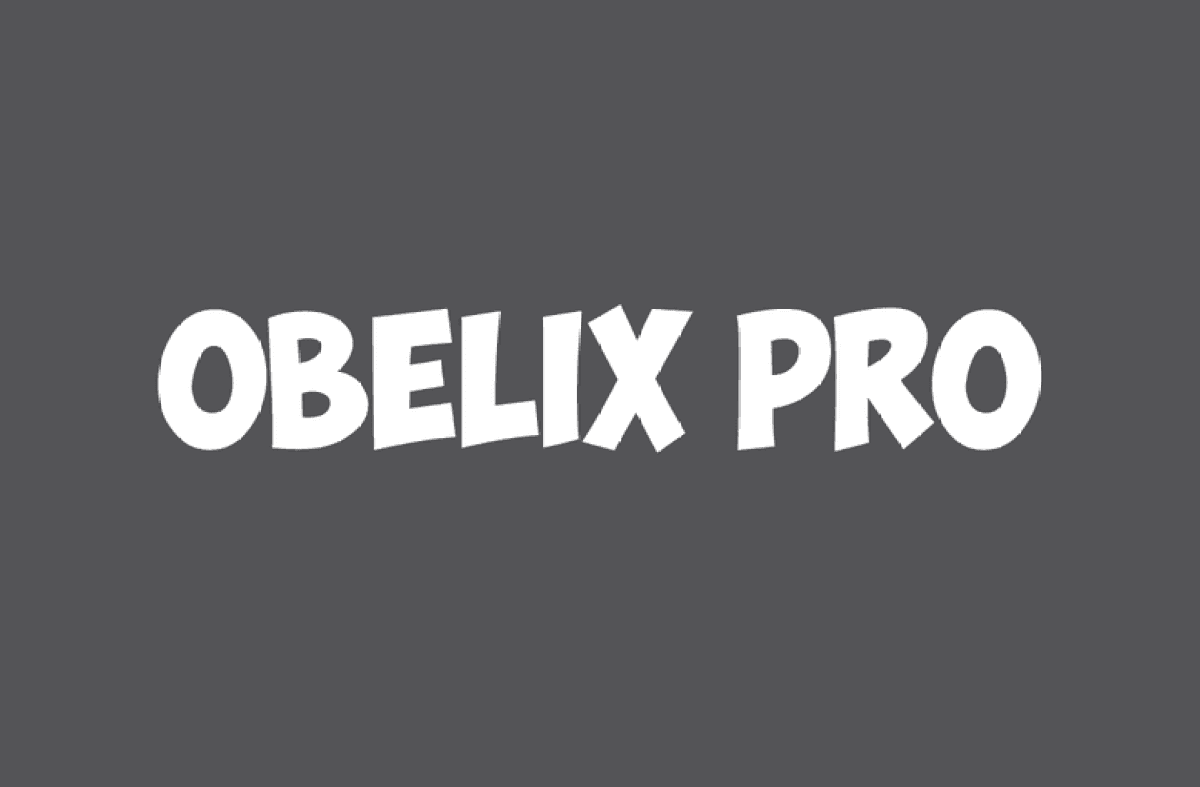
Is a simple font not hitting the sweet spot? Then go for Budmo, one of the coolest fonts YouTubers use, among which we also find Liza Koshy.
It's a fun and quirky font, with its glitzy and bold lettering. Pair it with some subtle colors, and you've got yourself an eye-catching YouTube text font that is sure to impress.
Did anyone say "magical"? Well, here you go. A font perfect for all things fantastic. It's bold, it's interesting, and it sure has a lot of pizazz. Alisha Marie knows it and often uses it to caption her thumbnails.
Beauty and the Beast is one of the best fonts for YouTube because it stands out, but without being a centerpiece. Throw it on a very colorful background, and it will do its job as perfectly as when it's used in association with more bland backgrounds.
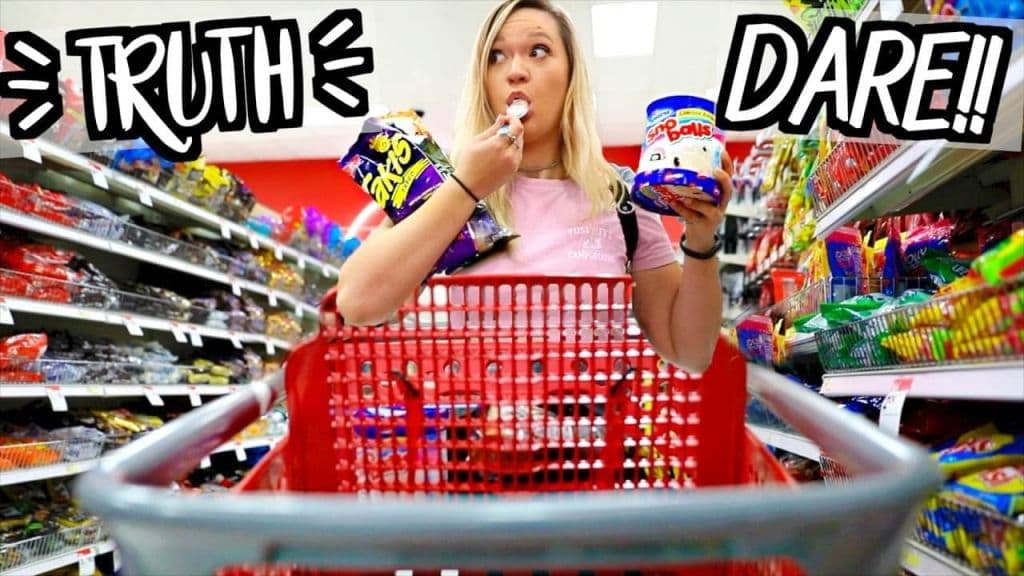
A simple, bold font like Impact definitely gets the job done. This YouTube text font will work wonderfully on game review channels or even makeup channels as despite being simple, it is eye-grabbing, as well as very readable.
PewDiePie uses Impact on his video thumbnails, and we have to say, it does make for one of the most popular YouTube fonts as you might have noticed yourself. Many other YouTubers are fans of this typeface style.
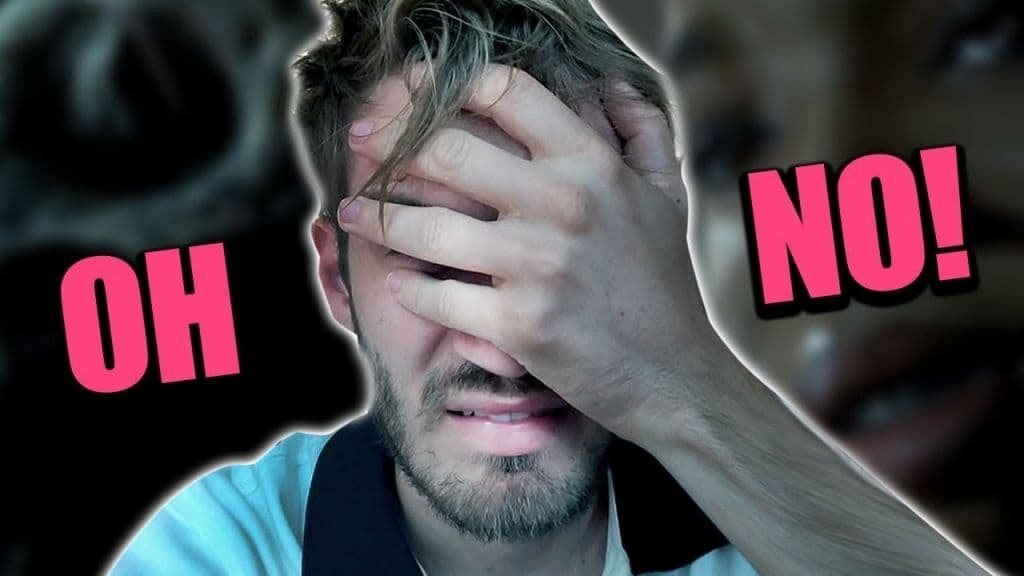
Used by Gabriel Conte on most of his YouTube videos, this typeface is different than what you might usually stumble upon. Its bold, but faded lettering looks fantastic on any video thumbnail.
River Drive would work great on a travel channel or a music one as it's one of the best YouTube fonts out there. If your goal is to stand out, then this is your chance.
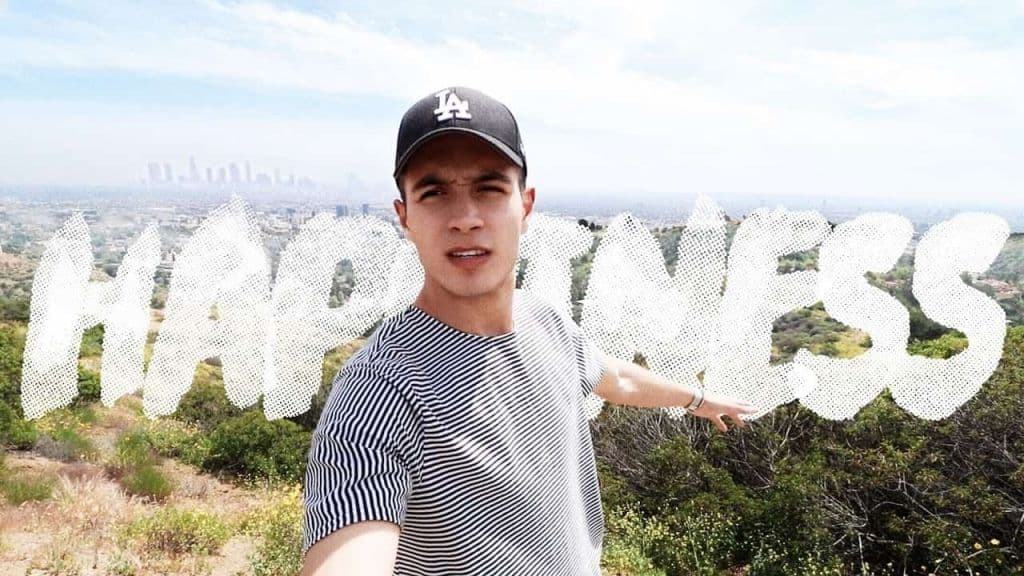
Now here's a font that just screams "Attention!" even if you just read its name. Another example on the list of best YouTube thumbnail fonts is Badaboom BB, extensively used by Wengie on her channel, and it's honestly such a great match of font and content.
Use it for quirky and fun content, and it's guaranteed to make an impression.
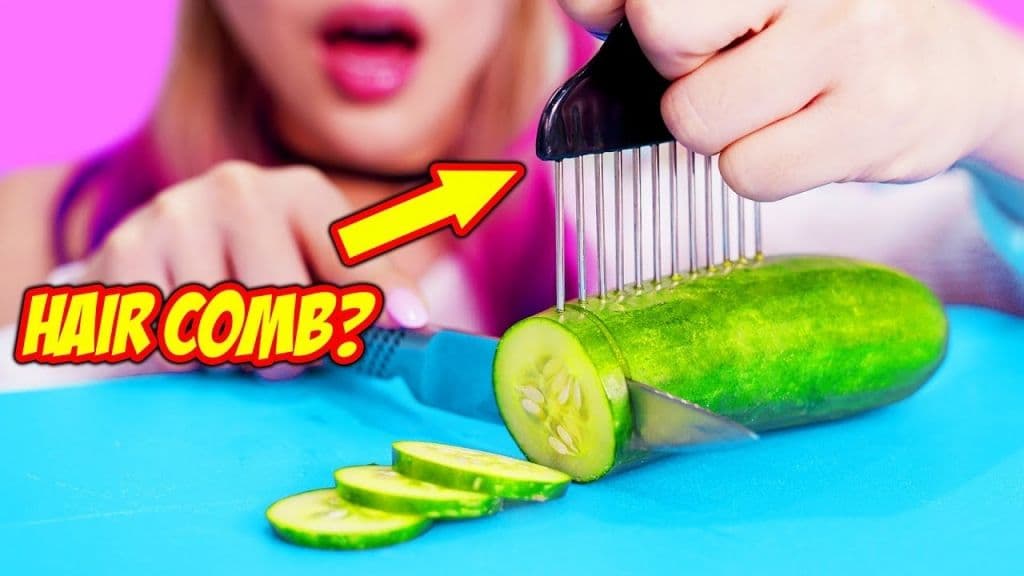
Looking for elegant but funky fonts for YouTube thumbnails? We have the right one for you.
Bernhard is elegant while at the same time looking fresh and modern. It would work best for a book-related channel or a history-related one, so if that's what you want, then it's a match.
Zoella is among some of the YouTubers that use this font for their thumbnails, and you would probably agree that it does look absolutely fabulous.
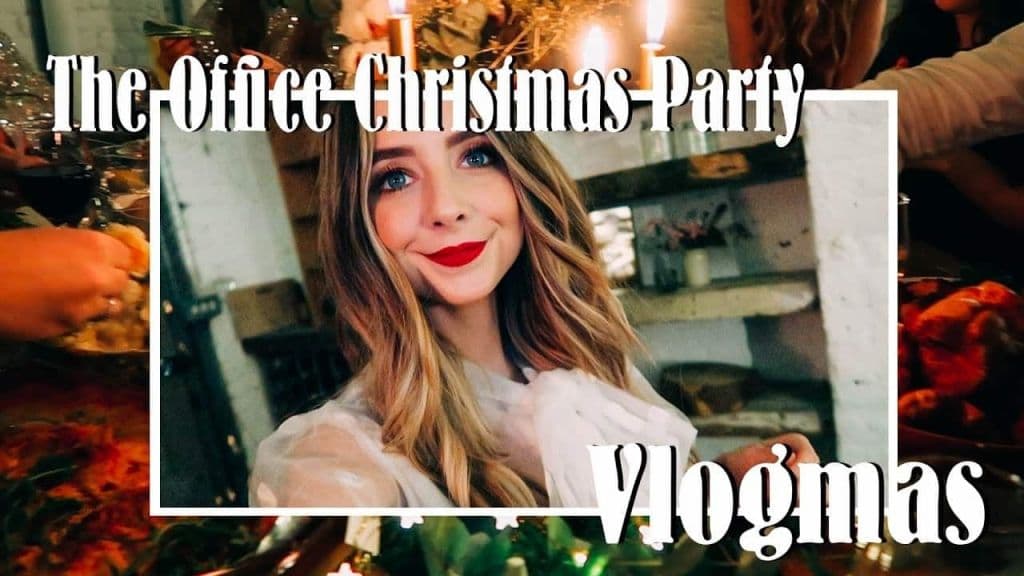
Want a YouTube thumbnail font that's both modern and classy? Montserrat can be your choice. Clean lines, a touch of personality – it's like your fave comfy sweater: versatile and effortlessly stylish. It reads perfectly on mobile, too! Works for bold statements (tech reviews!) or a friendly vibe (lifestyle channels). Great for websites, branding, and print, too. Just remember, it's popular, so explore alternatives for a truly unique look. Script fonts can add a playful touch but keep them separate from your core message text.
If you're looking for a dependable font for your YouTube thumbnail, Roboto is the answer you've been searching for. Crisp lines ensure mobile readability. Modern and versatile, it works for tech reviews or educational channels. Play with weights for bold headlines or lighter text. It's great for websites, branding, and print, too! It's popular, so explore for a unique look.
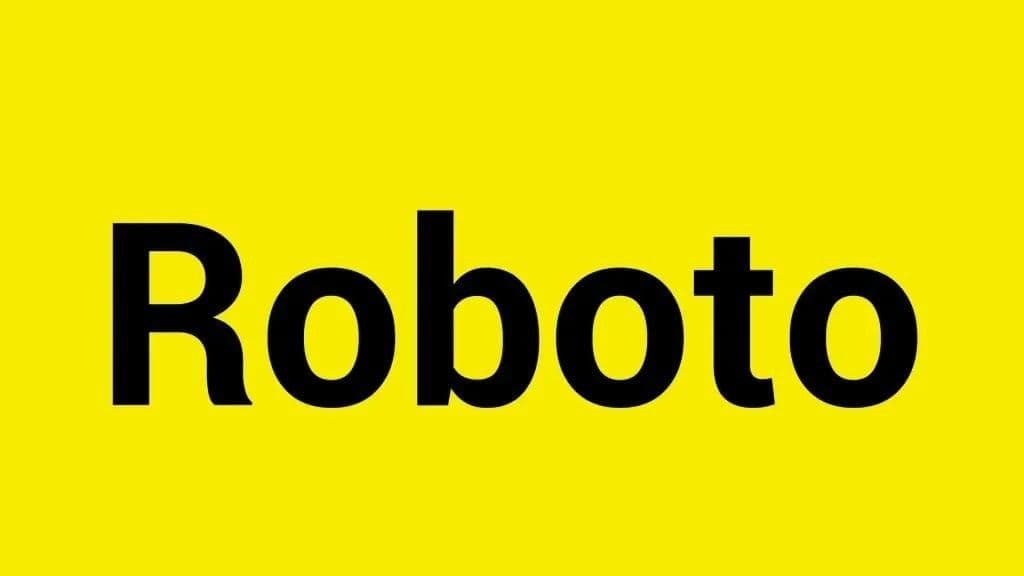
DK Mandarin Whispers is a beautiful font that you can use to add an elegant touch to your YouTube branding. You can use this font for your title overlays or to give your channel a unique visual identity. The DK Mandarin Whispers font comes in different sizes and styles, which you can customize according to your preferences to create an eye-catching banner or thumbnail.
Want to drive more clicks to your channel and videos? Then consider using a catchy font when creating your YouTube video thumbnails.
The colors and typeface you choose need to reflect what your channel is all about so get inspired and see what others are doing.